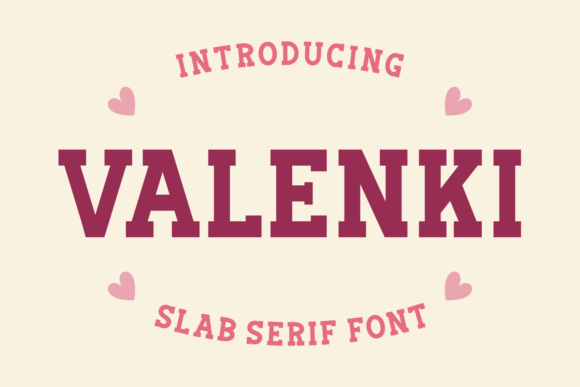
Valenki: A Bold and Playful Font for Modern Creativity
In a world where visual identity plays a crucial role in communication, the right font can make all the difference. Valenki is more than just a typeface—it’s a statement. Designed with a romantic and playful personality, this bold and energetic lab serif font captures attention while maintaining a sense of elegance. Whether you're creating a custom mug, designing a greeting card, or crafting a marketing campaign, Valenki offers a unique blend of style and functionality that resonates with today’s creative professionals.
As digital and physical design continue to intersect, the demand for versatile, expressive fonts has never been higher. Valenki fits perfectly into this evolving landscape, offering a fresh alternative to traditional serif and sans-serif styles. Its distinctive character makes it ideal for projects that require both impact and charm, from everyday branding to special occasion designs.
The Rise of Personalized Design
Modern consumers are increasingly drawn to personalized and meaningful products. From custom t-shirts to handcrafted stationery, there's a growing appreciation for items that reflect individuality and emotion. Valenki aligns with this trend by providing a font that feels personal yet professional. Its romantic undertones make it particularly well-suited for Valentine’s Day campaigns, wedding invitations, and other emotionally charged designs.
Businesses and creators alike are recognizing the value of fonts that can convey mood and message without relying on complex imagery. Valenki’s bold strokes and playful curves offer a visual language that speaks directly to the heart, making it an excellent choice for brands looking to connect with their audience on a deeper level.
Why Valenki Stands Out
What sets Valenki apart from other fonts is its ability to balance strength with softness. The lab serif structure gives it a modern, clean look, while the playful elements add a touch of whimsy. This duality makes it adaptable across a wide range of applications. Whether used in a minimalist poster or a vibrant tote bag design, Valenki maintains its distinct character without overwhelming the composition.
For designers, this versatility translates into greater creative freedom. It can be paired with other fonts to create contrast or used as a standalone element for maximum impact. Its legibility at various sizes also makes it suitable for both large-scale signage and small print details, ensuring consistency across different mediums.
Applications Across Industries
Valenki’s appeal extends beyond the realm of art and design. Entrepreneurs, marketers, and business owners are finding innovative ways to incorporate this font into their workflows. For example, in e-commerce, custom packaging with Valenki can elevate a product’s perceived value, creating a memorable unboxing experience. In the hospitality industry, branded menus and event invitations featuring Valenki can enhance the overall aesthetic and customer engagement.
For educators and content creators, Valenki provides a visually engaging way to present information. Whether used in lesson plans, social media graphics, or blog headers, its bold presence commands attention without sacrificing readability. This makes it a valuable tool for those who rely on visual storytelling to communicate ideas effectively.
Practical Tips for Using Valenki
When working with Valenki, consider the context and audience of your project. For formal applications such as business proposals or official documents, use it sparingly to maintain professionalism. In contrast, for creative or casual projects, embrace its full potential to add flair and personality.
Pairing Valenki with complementary fonts can help achieve a balanced design. For instance, combining it with a clean sans-serif like Helvetica or Arial can create a modern, sophisticated look. Alternatively, using it alongside a script font can enhance its romantic feel, making it ideal for wedding or celebration-related designs.
Another key consideration is typography hierarchy. Use Valenki for headlines, titles, and key messages to draw the eye, while opting for simpler fonts for body text. This approach ensures that the font remains impactful without becoming distracting.
Valenki in the Digital Age
As digital platforms continue to shape how we interact with content, the need for visually appealing and easily readable fonts has become even more important. Valenki performs well on screens of all sizes, making it suitable for web design, mobile apps, and social media graphics. Its strong visual presence helps it stand out in a crowded digital space, where first impressions matter.
Designers working on websites or digital campaigns can leverage Valenki to create a cohesive brand identity. Its bold nature works well for call-to-action buttons, hero sections, and other prominent elements that require immediate attention. At the same time, its playful character adds a human touch, helping to build a connection with users.
Whether you’re a designer, entrepreneur, educator, or hobbyist, Valenki offers a powerful way to bring your vision to life. By understanding its strengths and applying it thoughtfully, you can unlock new levels of creativity and connection in your work. With its unique blend of style and substance, Valenki is not just a font—it’s a reflection of the modern creator’s spirit.